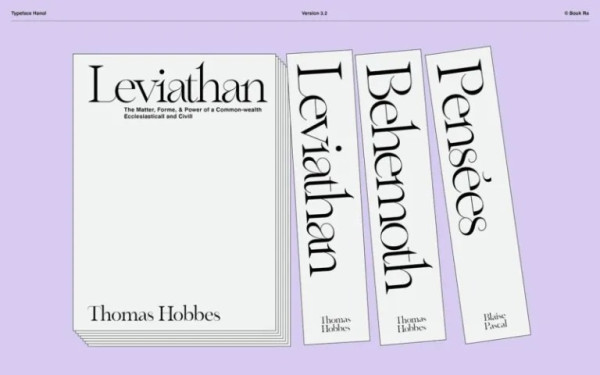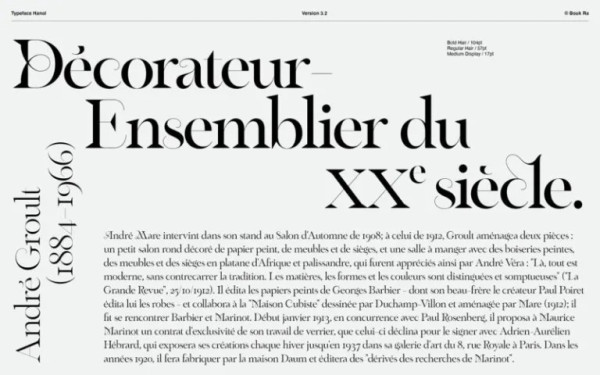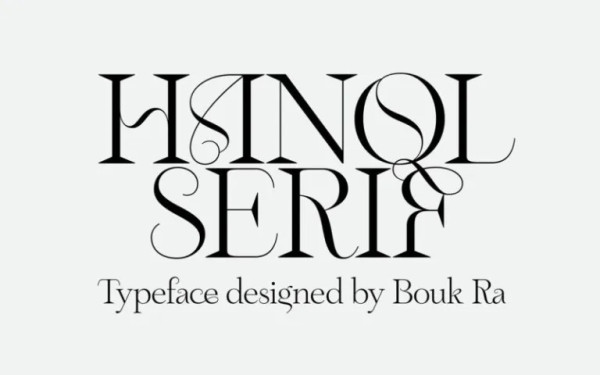
Hanol Font
Hanol Font is a unique serif font family. Hanol come with unique uppercase to mix and max you work more versatility and contemporary appeal. Designed by Paris-based Graphic and Type Designer Bouk Ra, this is a real gem of a typeface.